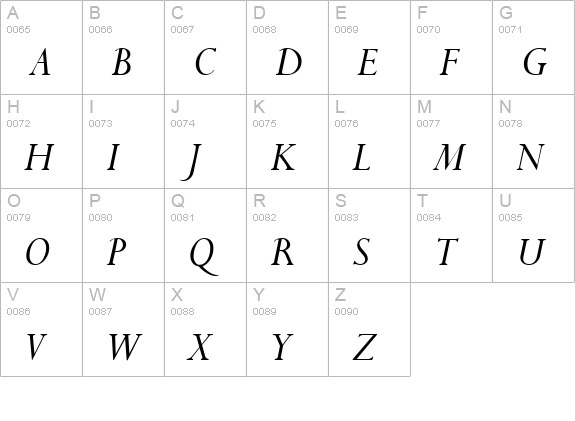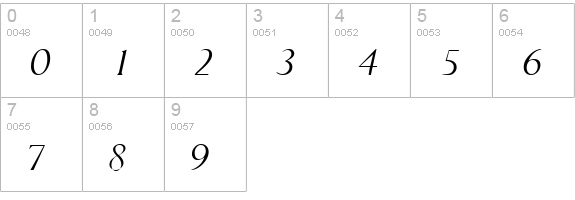
Purloin Italic Font Details
Purloin Italic is a distinctive, italic variant in the Purloin typeface family \xE2\x80\x94 well suited to design and typography projects.
Purloin Italic font exudes elegance and sophistication with its sleek and stylish design. The italicized letters add a touch of flair to any project, making it perfect for creating eye-catching headings or emphasis in your designs. This versatile font is ideal for a wide range of applications, from branding to editorial design. What makes Purloin Italic font even more appealing is that it is available for free download at FontsMarket.com. This means you can enhance your projects with this stunning font without having to worry about any additional costs. Don't miss out on the opportunity to elevate your designs with the timeless beauty of Purloin Italic font. Download it today and let your creativity soar!